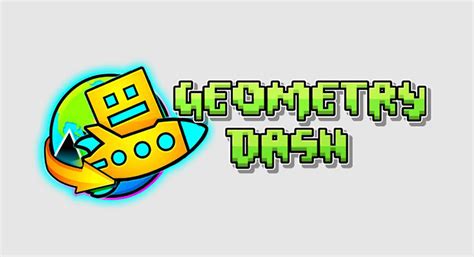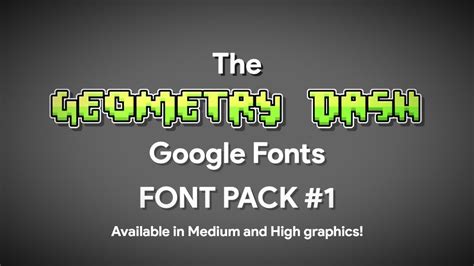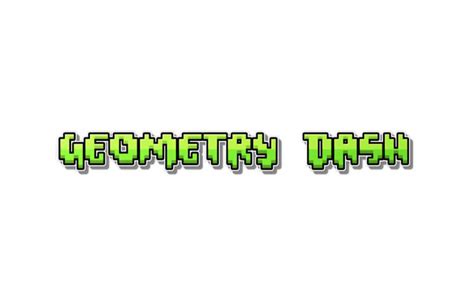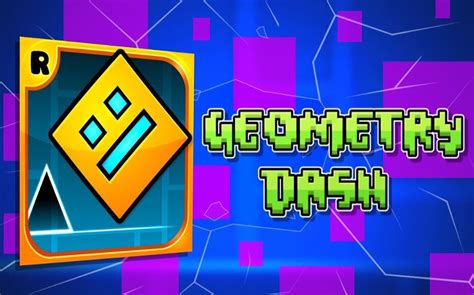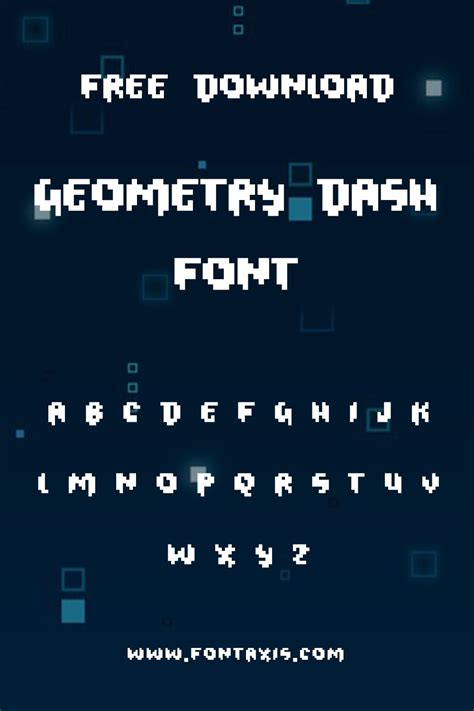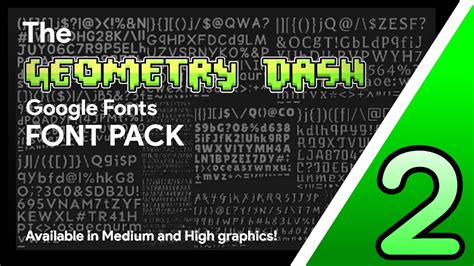
The geometry dash font is a unique and distinctive font style that has gained popularity, especially among fans of the popular mobile game, Geometry Dash. This font is characterized by its vibrant and colorful design, which adds a playful and energetic touch to any text or content. The font's aesthetic is a significant departure from traditional, monotone fonts, making it a popular choice for various creative projects and personal expressions.
One of the key features of the geometry dash font is its ability to convey a sense of movement and dynamism. The font's design often incorporates curved lines, sharp angles, and a variety of shapes, creating a visually appealing and engaging look. This dynamic quality has made it a favorite among designers and content creators who aim to capture attention and convey a sense of energy and excitement.
The font's versatility is another notable aspect. It can be used in various contexts, from social media posts and online content to graphic design projects and even in physical applications like posters and signage. Its unique style allows for creative expression, enabling users to stand out and make a memorable impact.
In summary, the geometry dash font offers a fun and distinctive way to enhance text and visuals. Its ability to capture attention, convey movement, and provide versatility makes it a valuable tool for anyone looking to add a touch of creativity and energy to their projects.